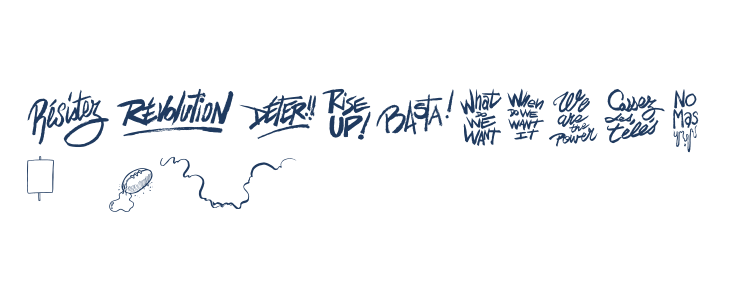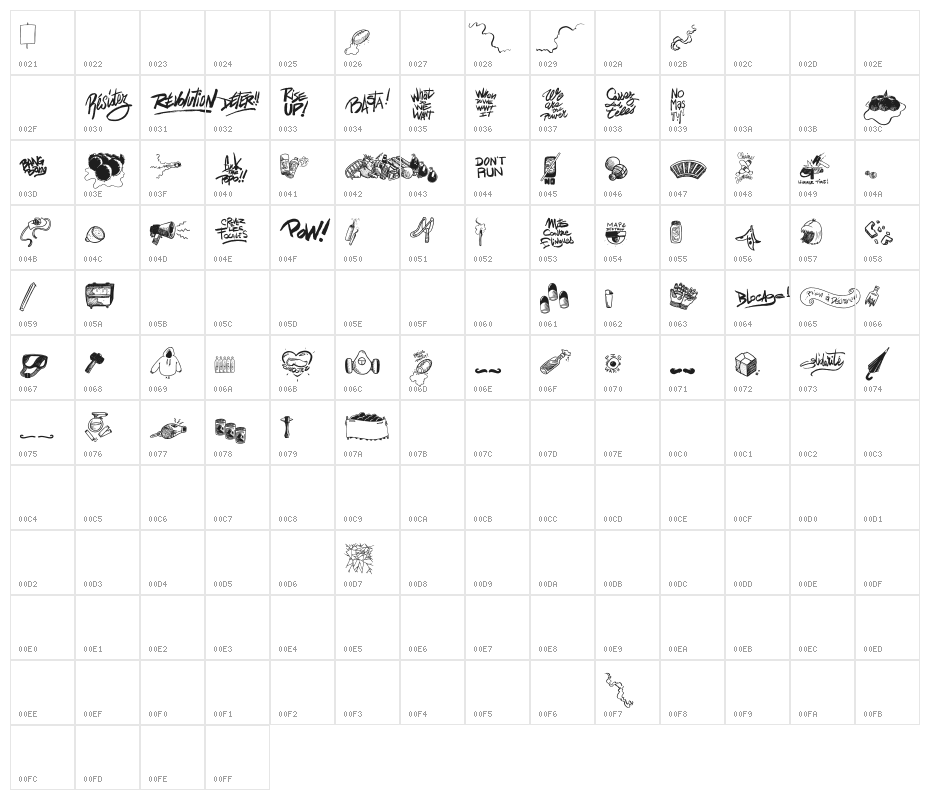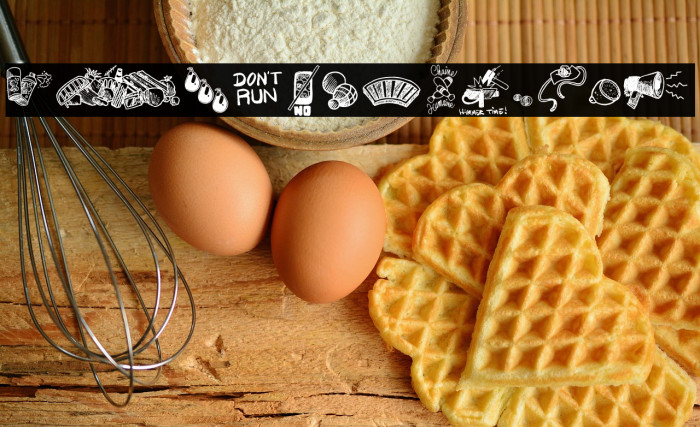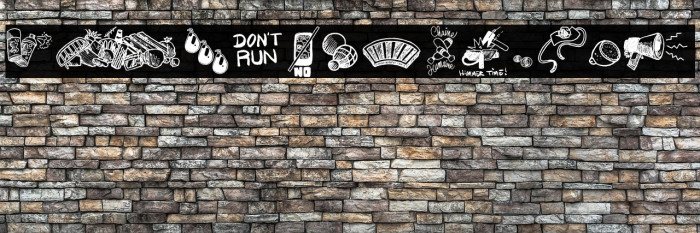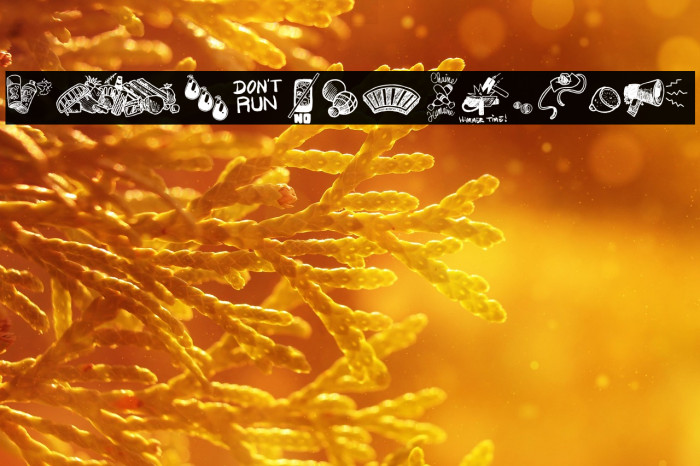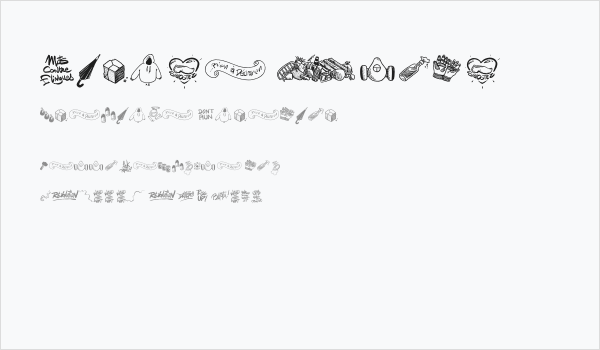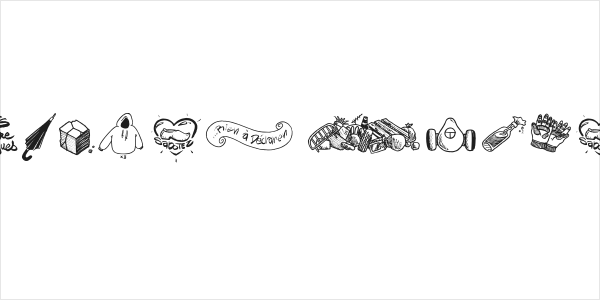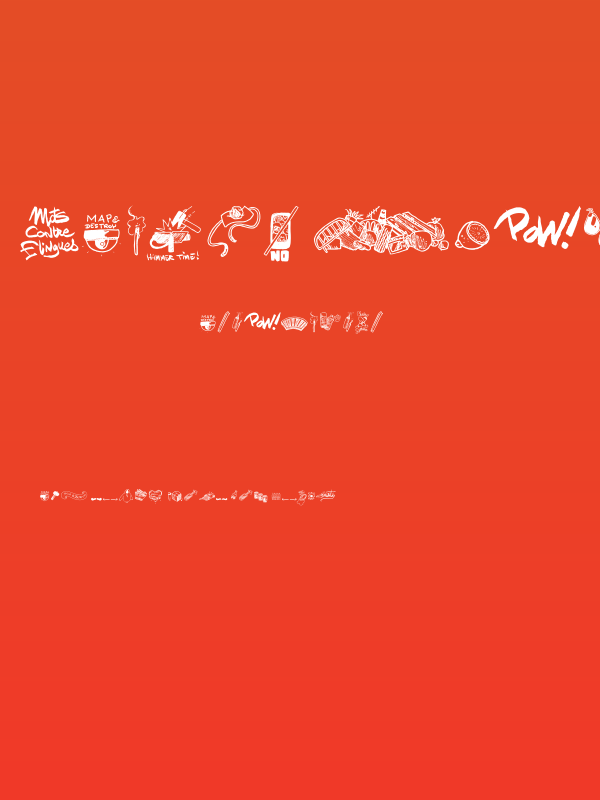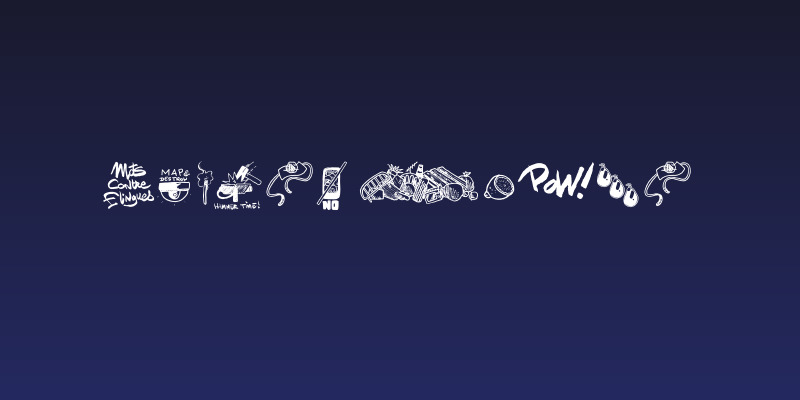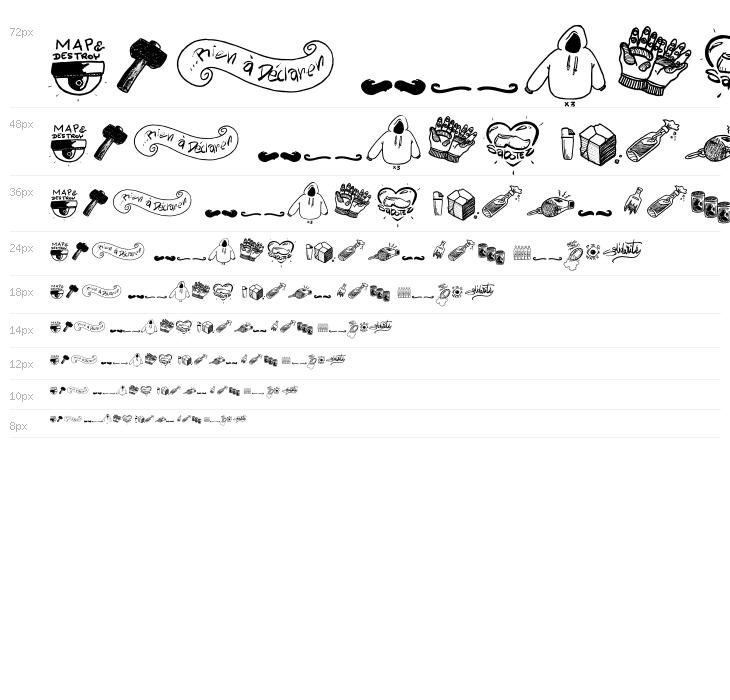
Strike Block Font
Strike Block Description
This collection features a series of bold, expressive designs that blend typography with illustrative elements. The style is highly dynamic, with a strong emphasis on movement and energy, capturing a sense of urgency and activism. The letters are often intertwined with graphic elements, creating a cohesive and impactful visual statement. The use of exclamation marks and bold lettering enhances the sense of immediacy and action. The overall aesthetic is rebellious and edgy, making it suitable for projects that aim to convey a message of protest or resistance. The combination of text and imagery creates a visually engaging experience that draws the viewer's attention and communicates a powerful message.
| Overall Style | Rebellious, Edgy, Activist |
| Use Case | Posters, Campaigns, Street Art |
| Proposed Projects | Ideal for protest posters, activist campaigns, street art, and any project requiring a bold, impactful message. |